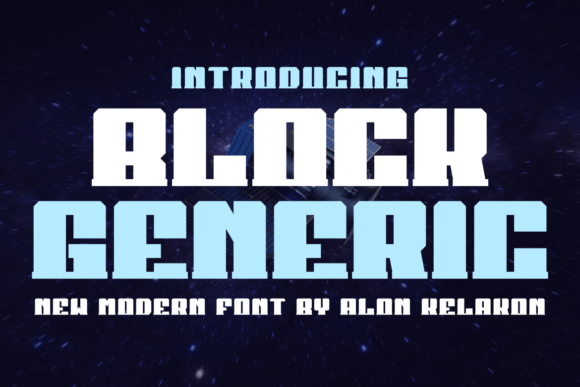
The Blocky Beauty of Block Generic: A Font Review
I’ll never forget the time I was working on a project for a local gym, trying to create a bold and eye-catching poster that would appeal to fitness enthusiasts. I had a clear vision in mind, but the font I was using just wasn’t cutting it – it was too bland, too generic. That’s when I stumbled upon Block Generic, a blocky display font with a strong, masculine character that perfectly captured the tone I was looking for.
Block Generic is a font that’s hard to ignore. Its bold, chunky letters are perfect for headlines, gym posters, or even sports apparel. But what makes it truly special is its versatility – it’s a font that can be used in a variety of contexts, from digital designs to print materials.
• ✨ Strong, masculine character that’s perfect for bold designs
• 🎉 Great for headlines and titles, adding a touch of personality to any design
• 👍 Easy to pair with other fonts, thanks to its bold and distinctive style
While Block Generic is an excellent font, it’s not without its quirks. For example:
• 🤔 Limited use for body text – Block Generic is best suited for headlines and titles, and may not be the best choice for longer blocks of text.
• ⚠️ May not be suitable for small sizes – while the font is legible at small sizes, it may lose some of its impact and boldness.
The Designer Inspiration Behind Block Generic
Block Generic was designed with one goal in mind: to create a bold, attention-grabbing font that’s perfect for headlines and titles. The designer, who wishes to remain anonymous, drew inspiration from classic block fonts and modern geometric shapes to create a unique and versatile font.
The designer’s goal was to create a font that’s both strong and elegant, with a character that’s both masculine and sophisticated. The result is a font that’s perfect for a wide range of design projects, from fitness and sports to technology and finance.
Q: What is Block Generic?
A: Block Generic is a blocky display font with a strong, masculine character. It’s perfect for headlines, gym posters, or even sports apparel.
Q: Is Block Generic suitable for body text?
A: While Block Generic is a great font, it’s not the best choice for body text. It’s best suited for headlines and titles, where its bold and attention-grabbing character can shine.
Q: Is Block Generic available in different styles?
A: Block Generic is a single font, but it does offer some OpenType features like ligatures and stylistic alternates that can add visual interest to your text.